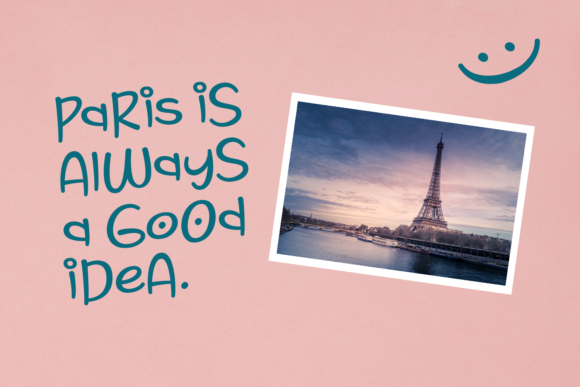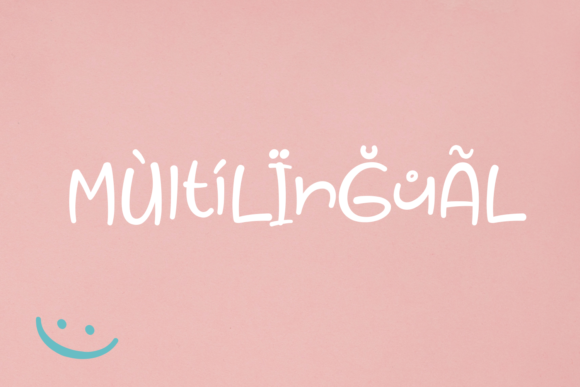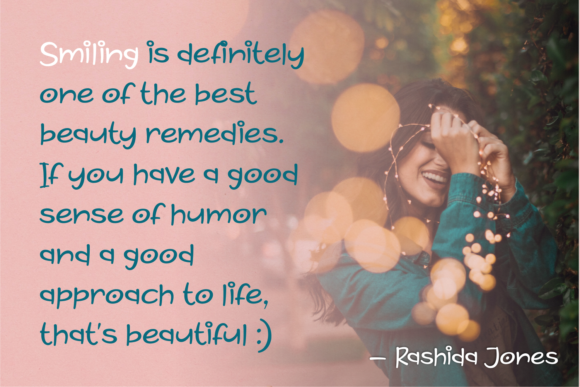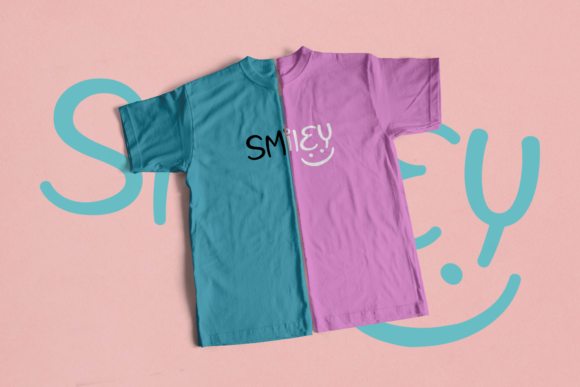
Introduction to Good Smiley Font
Have you ever been working on a creative project, pouring your heart and soul into it, only to realize that something’s missing? That’s when you stumble upon a game-changer – a design element that elevates your entire concept and takes it to the next level. For designers, this moment is a dream come true, and for many, it’s a free download of the Good Smiley Font that makes all the difference.
Imagine a display font that’s not just visually appealing, but also effortlessly joyful and dynamic. The Good Smiley Font is that and more, featuring cute dots that add a playful touch to any design. Whether you’re working on a kids’ book cover, a social media campaign, or a greeting card, this high-quality font is sure to make your design stand out. With its transparent background, it’s the perfect design resource for any creative project.
Key Features of Good Smiley Font
- Unique and playful characters, ideal for adding a touch of personality to designs.
- Transparent background, allowing for seamless integration with any design element.
- Designed in high resolution (300 DPI), ensuring crisp and clear rendering in various sizes.
- Perfect for use in digital designs, such as social media graphics, website headers, and mobile app icons.
Honest Review: Good Smiley Font
I recently stumbled upon the Good Smiley Font and I must say, it’s been a game-changer for my creative projects. With a free download, I was able to easily incorporate this high-quality design resource into my workflow.
- ✨ The font is highly customizable, allowing me to adjust the size, color, and style to fit my design needs.
- ✨ The transparent background feature makes it easy to layer this font over images or other design elements.
- ⚠️ The font is not available in a bold or italic version, which may limit its versatility in certain design contexts.
Overall, I’m impressed with the Good Smiley Font and would recommend it to designers looking for a high-quality, free design resource. Its versatility and ease of use make it a great addition to any creative project.
Tips for Getting the Most Out of Good Smiley Font
For the best results, use Good Smiley Font on a transparent background. This will allow you to combine it with other design elements seamlessly. Additionally, experiment with different font sizes and colors to create visually appealing designs.
Good Smiley Font is perfect for creating social media graphics, blog posts, and other online content. It’s also great for designing custom logos, illustrations, and graphics for your business or personal brand.
Is the Good Smiley Font available with a transparent background?
Yes, the Good Smiley Font is available with a transparent background, making it easy to use in design projects where you need a design resource that can be layered over other elements. This feature is particularly useful in graphic design, web design, and digital art projects.